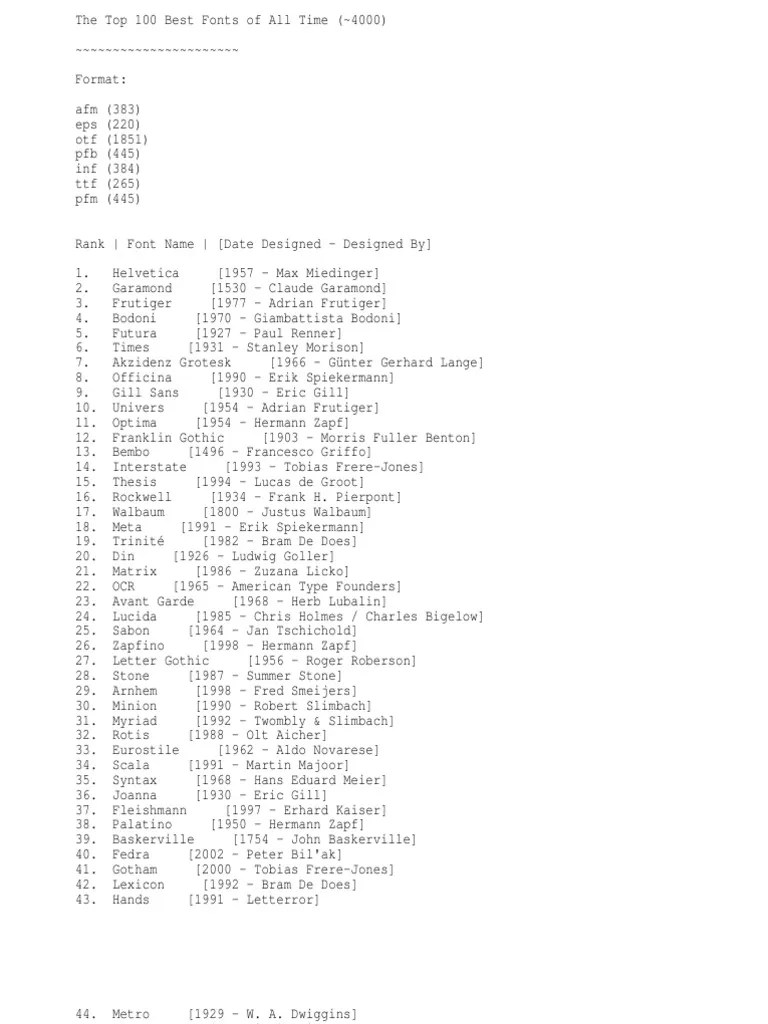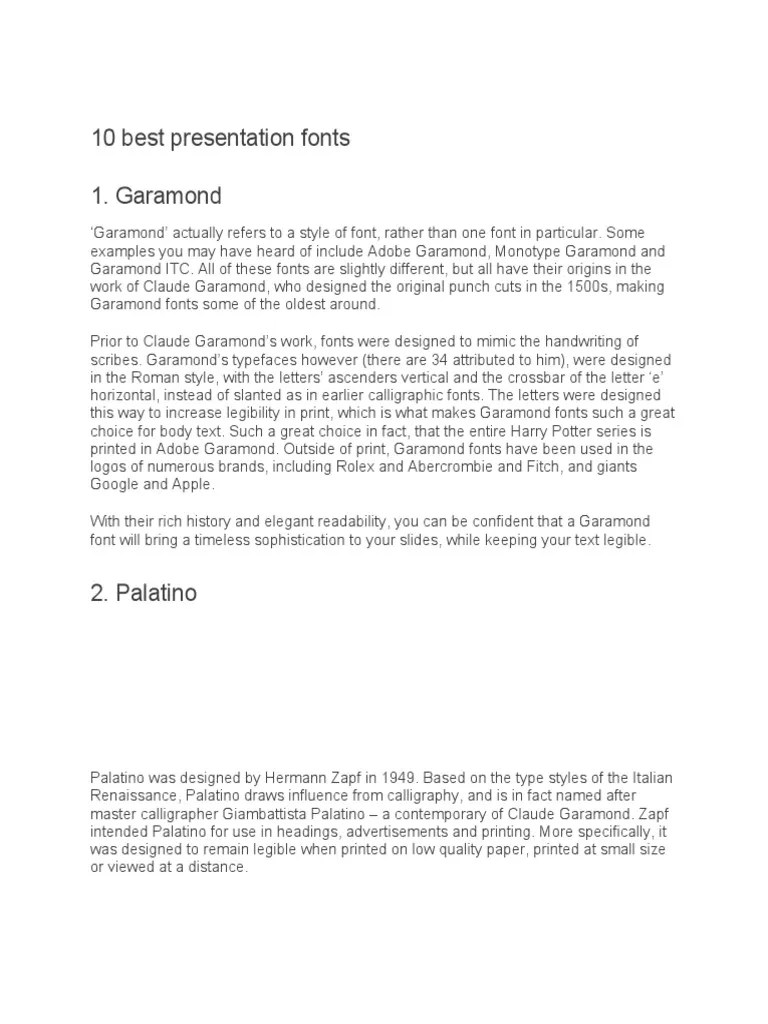
Best Fonts For Pdf Files . Follow these steps in adobe acrobat to embed and substitute fonts in pdfs, and preview pdfs without local fonts. Here’s a brief list of some of the best fonts for embedding in pdf files: Read on to discover the 14 best fonts for business documents and learn more about selecting the right font for your brand’s printed materials. Restricting your document to the pdf base fonts should help. Famous for its legibility and sleek, modern look, helvetica ensures. This page provides an overview of the way fonts are supported in pdf files. The best font for readability often depends on the context and medium. However, fonts like arial and helvetica are widely. It covers the basics about the supported font types, encodings, and the ways of enclosing fonts in a. With creative market, you can.
Famous for its legibility and sleek, modern look, helvetica ensures. Here’s a brief list of some of the best fonts for embedding in pdf files: It covers the basics about the supported font types, encodings, and the ways of enclosing fonts in a. Restricting your document to the pdf base fonts should help. The best font for readability often depends on the context and medium. However, fonts like arial and helvetica are widely. This page provides an overview of the way fonts are supported in pdf files. With creative market, you can. Follow these steps in adobe acrobat to embed and substitute fonts in pdfs, and preview pdfs without local fonts. Read on to discover the 14 best fonts for business documents and learn more about selecting the right font for your brand’s printed materials.
Best Fonts For Pdf Files Follow these steps in adobe acrobat to embed and substitute fonts in pdfs, and preview pdfs without local fonts. Read on to discover the 14 best fonts for business documents and learn more about selecting the right font for your brand’s printed materials. However, fonts like arial and helvetica are widely. It covers the basics about the supported font types, encodings, and the ways of enclosing fonts in a. Famous for its legibility and sleek, modern look, helvetica ensures. With creative market, you can. Restricting your document to the pdf base fonts should help. Follow these steps in adobe acrobat to embed and substitute fonts in pdfs, and preview pdfs without local fonts. The best font for readability often depends on the context and medium. Here’s a brief list of some of the best fonts for embedding in pdf files: This page provides an overview of the way fonts are supported in pdf files.
Adobe PDF Base14 Fonts Best Fonts For Pdf Files Restricting your document to the pdf base fonts should help. With creative market, you can. Read on to discover the 14 best fonts for business documents and learn more about selecting the right font for your brand’s printed materials. However, fonts like arial and helvetica are widely. This page provides an overview of the way fonts are supported in pdf. Best Fonts For Pdf Files.
5 bright and unusual combinations of free Google Fonts. Available as a Best Fonts For Pdf Files The best font for readability often depends on the context and medium. Read on to discover the 14 best fonts for business documents and learn more about selecting the right font for your brand’s printed materials. With creative market, you can. Restricting your document to the pdf base fonts should help. However, fonts like arial and helvetica are widely. This. Best Fonts For Pdf Files.
Fonts PDF Typefaces Times New Roman Best Fonts For Pdf Files This page provides an overview of the way fonts are supported in pdf files. Here’s a brief list of some of the best fonts for embedding in pdf files: The best font for readability often depends on the context and medium. Famous for its legibility and sleek, modern look, helvetica ensures. Restricting your document to the pdf base fonts should. Best Fonts For Pdf Files.
fonts list pdf Best Fonts For Pdf Files However, fonts like arial and helvetica are widely. Follow these steps in adobe acrobat to embed and substitute fonts in pdfs, and preview pdfs without local fonts. The best font for readability often depends on the context and medium. With creative market, you can. Famous for its legibility and sleek, modern look, helvetica ensures. It covers the basics about the. Best Fonts For Pdf Files.
Font Styles Alphabet 20 Free PDF Printables Printablee Best Fonts For Pdf Files Famous for its legibility and sleek, modern look, helvetica ensures. This page provides an overview of the way fonts are supported in pdf files. It covers the basics about the supported font types, encodings, and the ways of enclosing fonts in a. The best font for readability often depends on the context and medium. However, fonts like arial and helvetica. Best Fonts For Pdf Files.
How to use custom font in PDF PHP FPDF Tutorial 5 YouTube Best Fonts For Pdf Files The best font for readability often depends on the context and medium. It covers the basics about the supported font types, encodings, and the ways of enclosing fonts in a. Follow these steps in adobe acrobat to embed and substitute fonts in pdfs, and preview pdfs without local fonts. Restricting your document to the pdf base fonts should help. Here’s. Best Fonts For Pdf Files.
Beautiful Font PDF Best Fonts For Pdf Files This page provides an overview of the way fonts are supported in pdf files. Follow these steps in adobe acrobat to embed and substitute fonts in pdfs, and preview pdfs without local fonts. With creative market, you can. Here’s a brief list of some of the best fonts for embedding in pdf files: It covers the basics about the supported. Best Fonts For Pdf Files.
How To Find Fonts Used In PDF Documents Using Adobe Acrobat Reader DC Best Fonts For Pdf Files Famous for its legibility and sleek, modern look, helvetica ensures. It covers the basics about the supported font types, encodings, and the ways of enclosing fonts in a. Here’s a brief list of some of the best fonts for embedding in pdf files: With creative market, you can. The best font for readability often depends on the context and medium.. Best Fonts For Pdf Files.
Chapter 6 Using fonts in pdfHTML Best Fonts For Pdf Files The best font for readability often depends on the context and medium. With creative market, you can. This page provides an overview of the way fonts are supported in pdf files. Restricting your document to the pdf base fonts should help. Famous for its legibility and sleek, modern look, helvetica ensures. However, fonts like arial and helvetica are widely. Read. Best Fonts For Pdf Files.